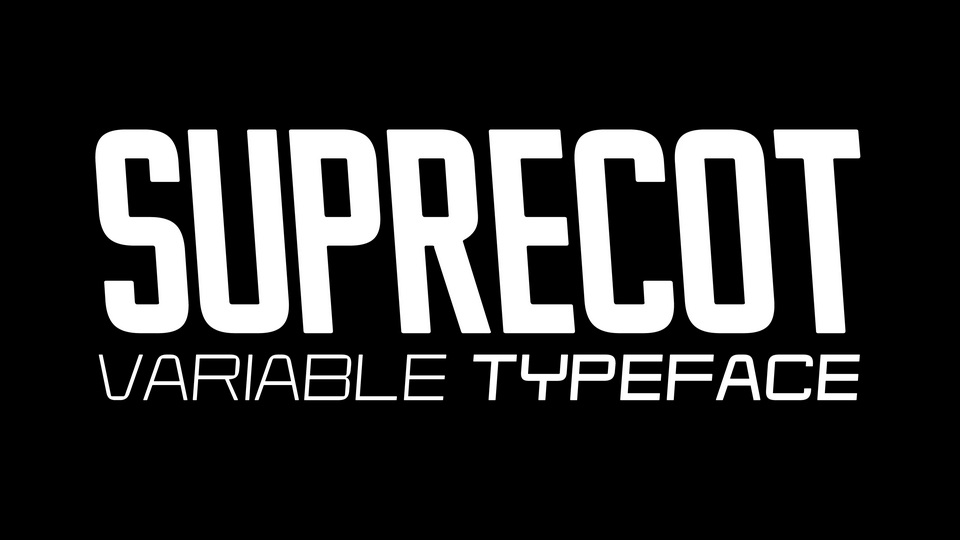
Download Suprecot font, a limited character set variable typeface with 3 axis: weight, width, slant. With its bold and solid style, Suprecot font is ideal for product logos, headlines and signage, it has both power and versatility.
Designer: Graham Paterson